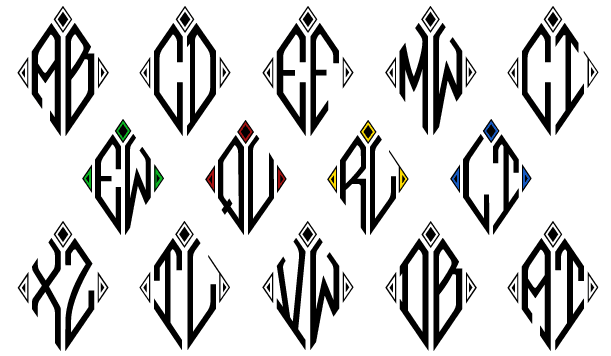
Bindi Monogram
About Bindi Monogram
The inspiration source for Bindi Monogram is a 1915 publication containing classic and modern monogram patterns for embroidery. This Art Deco style monogram has been redrawn, balanced, and brought forward into the digital age. Like so many monograms from…